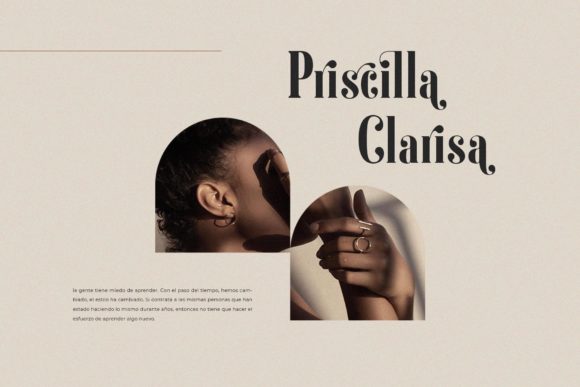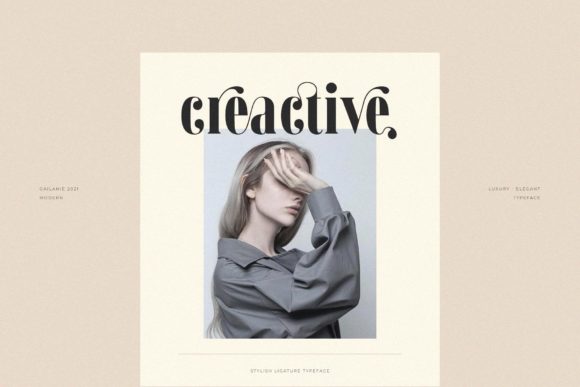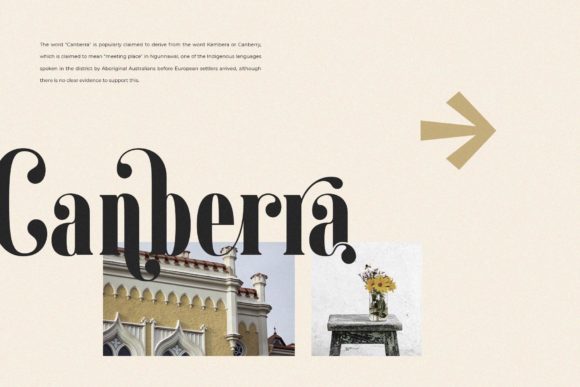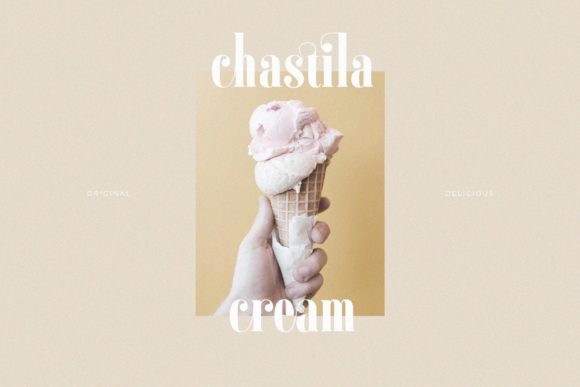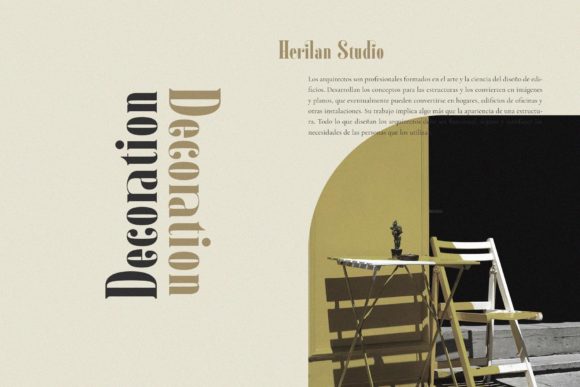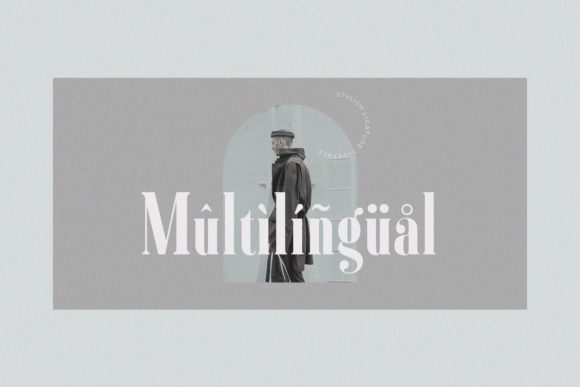
Introduction to Gailanie Font
Gailanie is a modern and stylish serif font perfect for creative projects that need to stand out.
Use it to create fantastic logos, invitations, headlines, covers, banners, or more .
Key Features of Gailanie Font
Why Choose Gailanie Font?
Gailanie Font offers exceptional quality and versatility, making it a valuable addition to your design toolkit. Whether you’re creating for personal projects or commercial use, Gailanie Font delivers professional results.